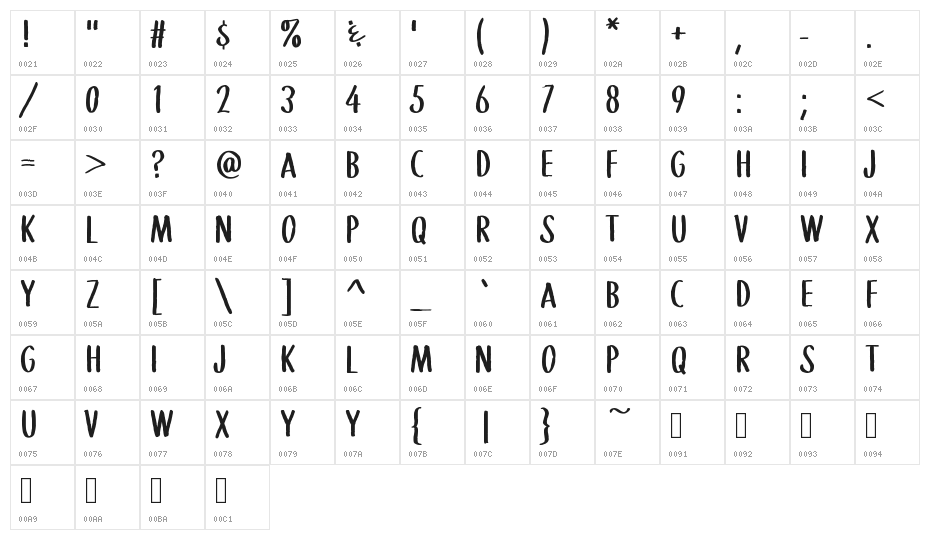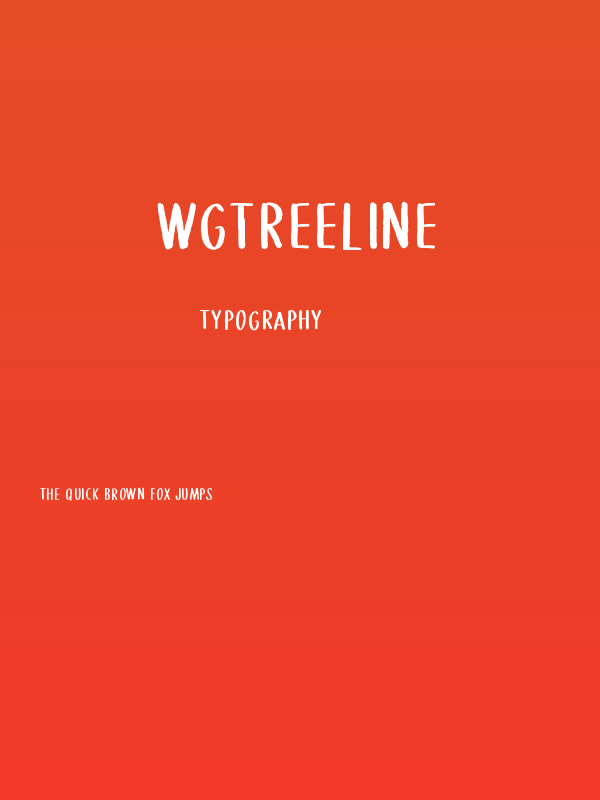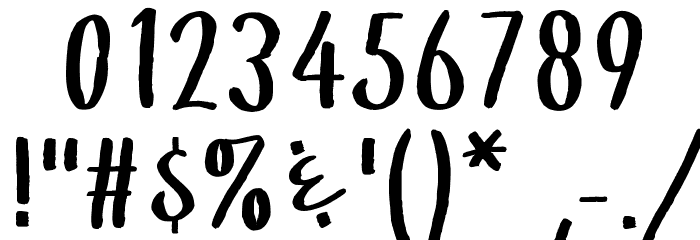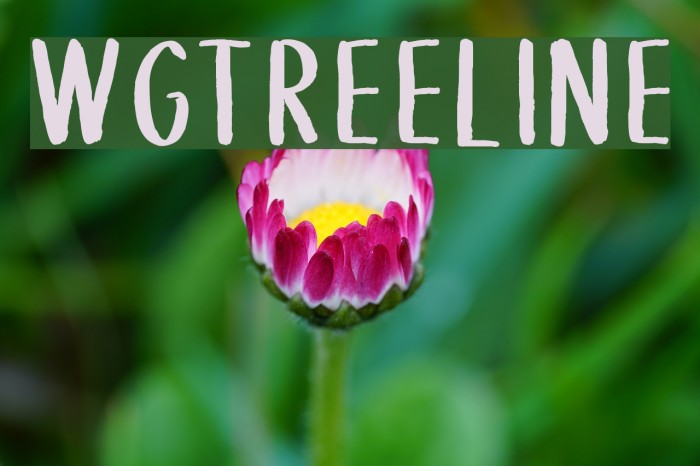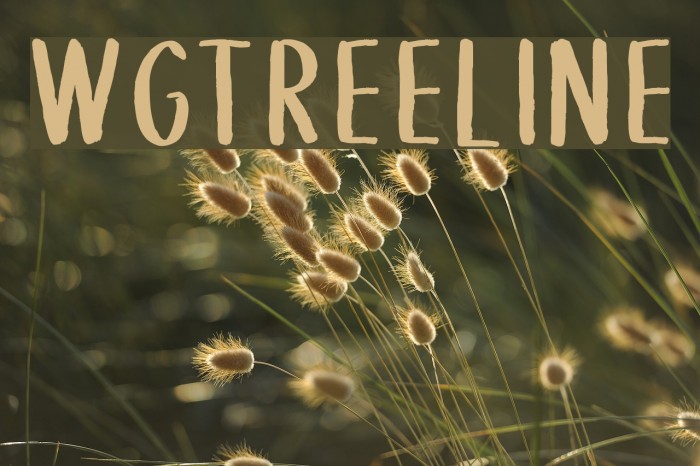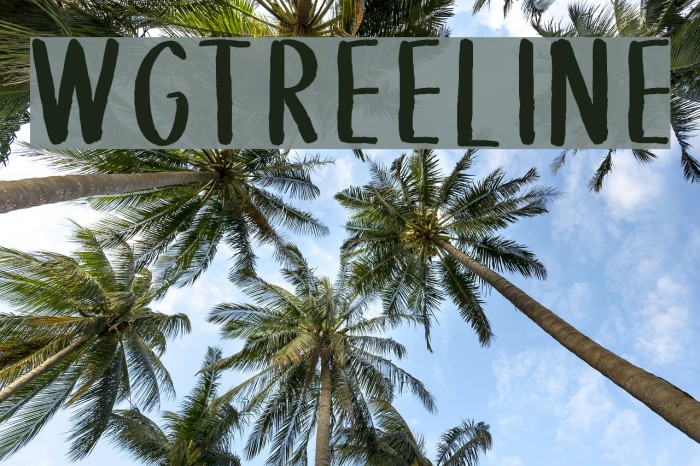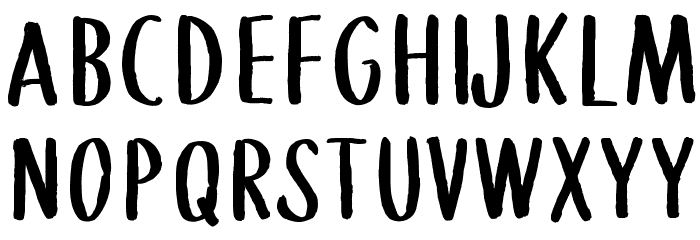
WGTreeline Font
WGTreeline Description
This font features a bold, hand-painted style with a natural and organic feel. The characters are slightly irregular, giving it a unique and artistic appearance. The strokes are thick and expressive, with a brush-like texture that adds depth and character. The uppercase and lowercase letters maintain a consistent style, while the numerals and special characters complement the overall aesthetic. This font is perfect for projects that require a personal touch or a creative flair, such as posters, invitations, or branding materials.
| Proposed Projects | Ideal for creative projects like posters, invitations, and branding materials. |